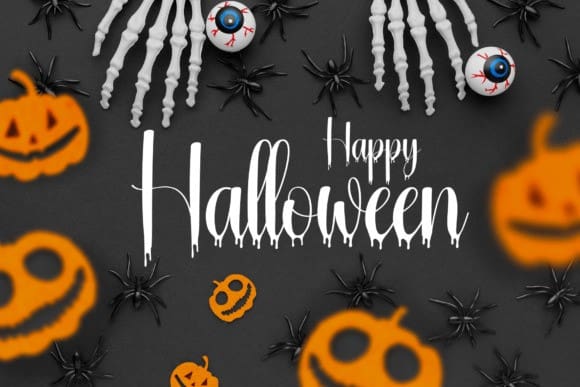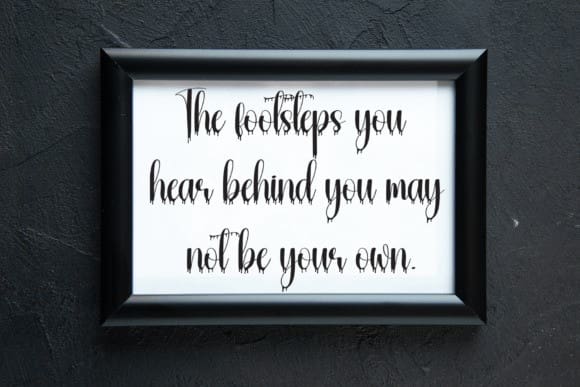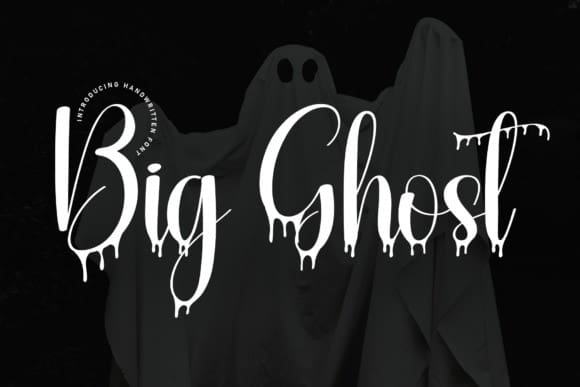
Big Ghost Font
Big Ghost Font is a cool and spooky handwritten script font. Its unique look will help you create amazing Halloween or horror-themed designs!